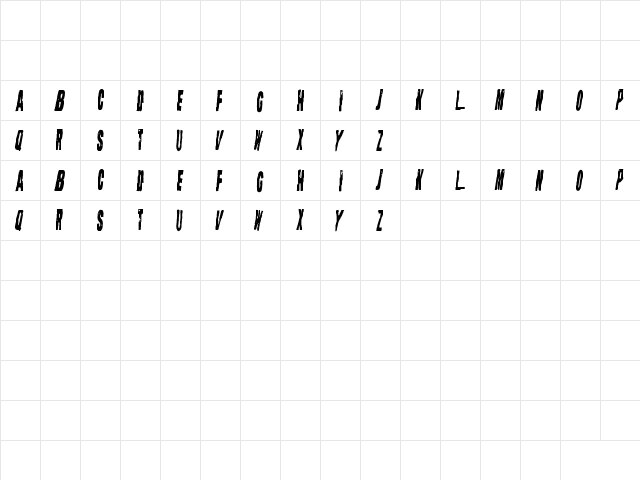
Straight Face Regular
| Foundry | High-Logic |
| Designer | Chris Hansen |
Design Context for Straight Face Typeface
Straight Face is a composed and adaptable typeface that performs quietly and consistently across a wide range of design contexts.